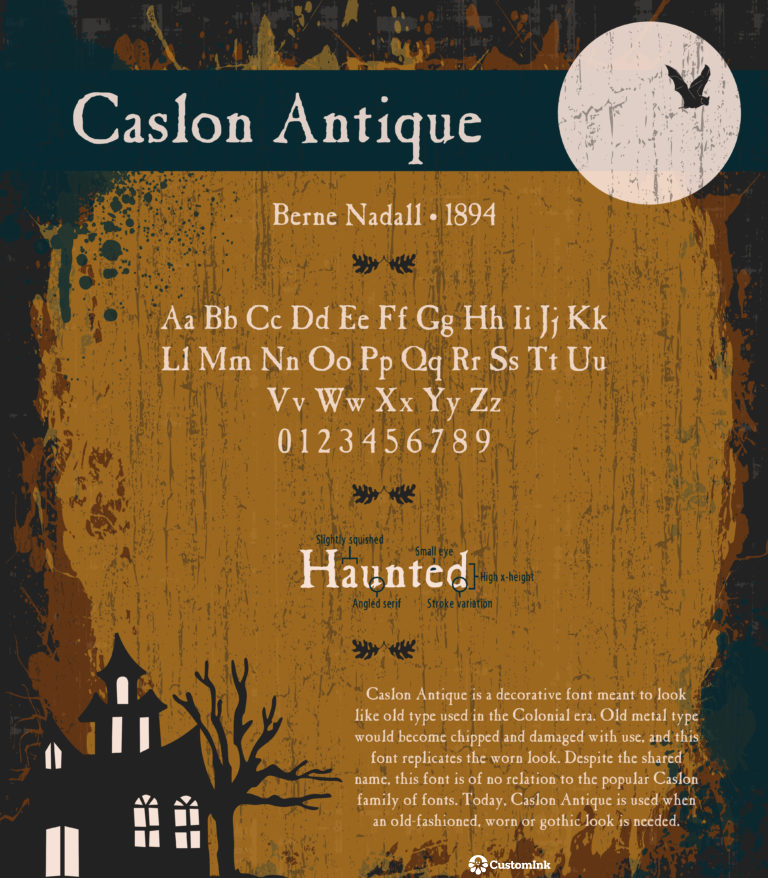
Font of the Week — Caslon Antique
Caslon Antique was created by Berne Nadal in 1894 to pay homage to the metal type printers that were used over and over again, causing the elements to become damaged and chipped. Caslon Antique bares no relation to the popular Caslon font family and was only named such in an attempt to boost it’s popularity. Where have you seen this spooky font? Between plays, musicals, and video games, you’re sure to have seen Caslon Antique a time or two.